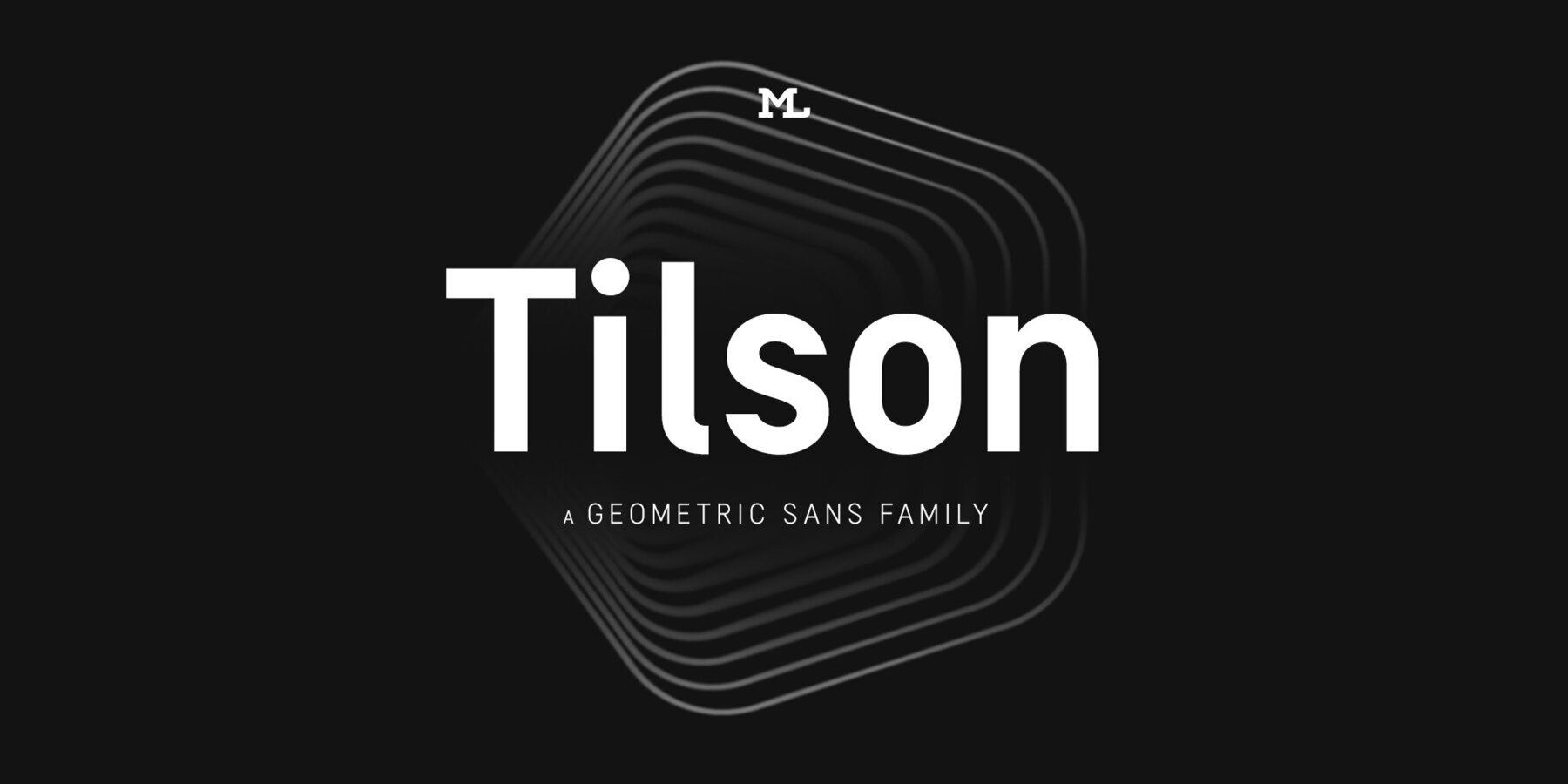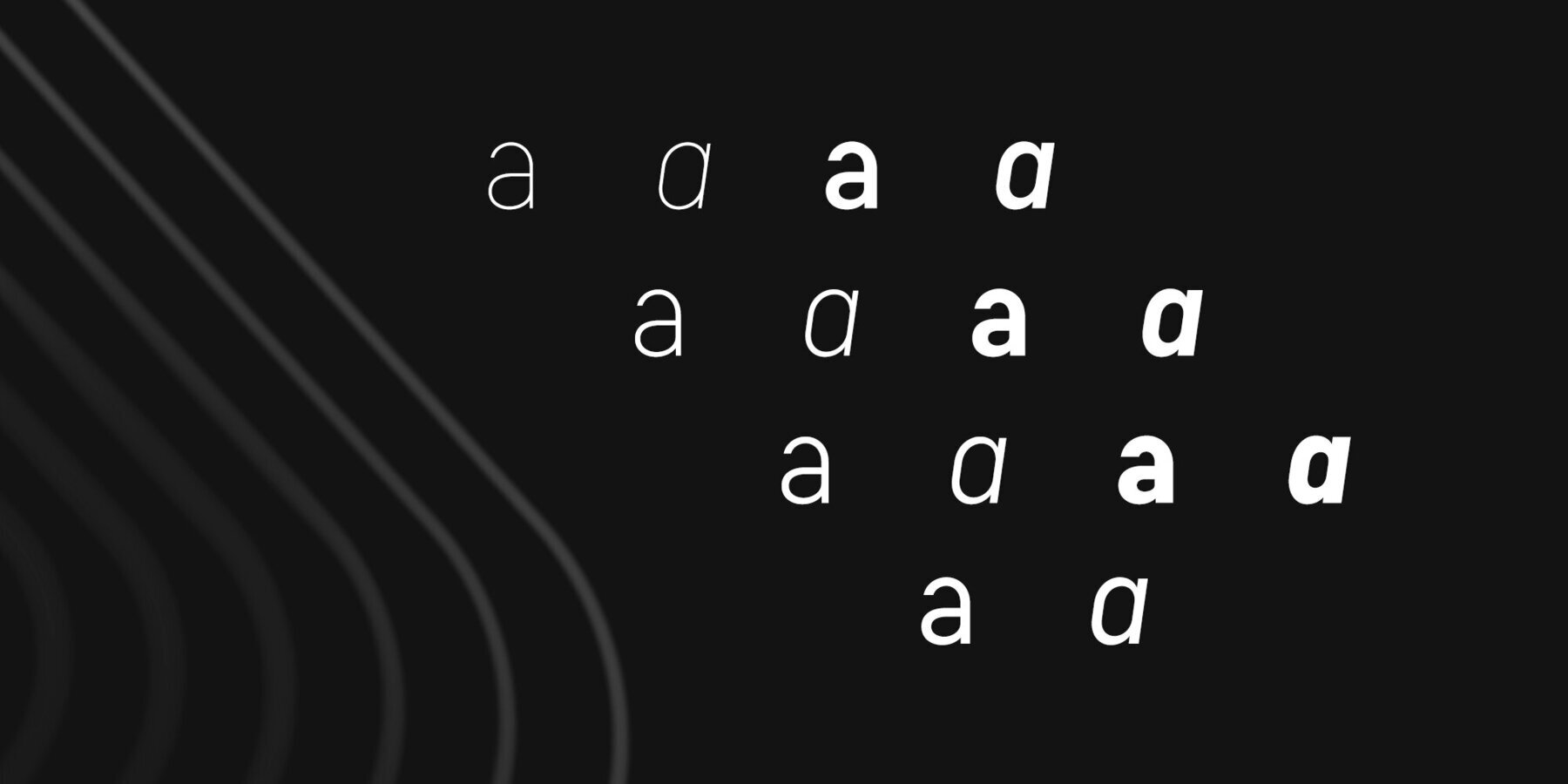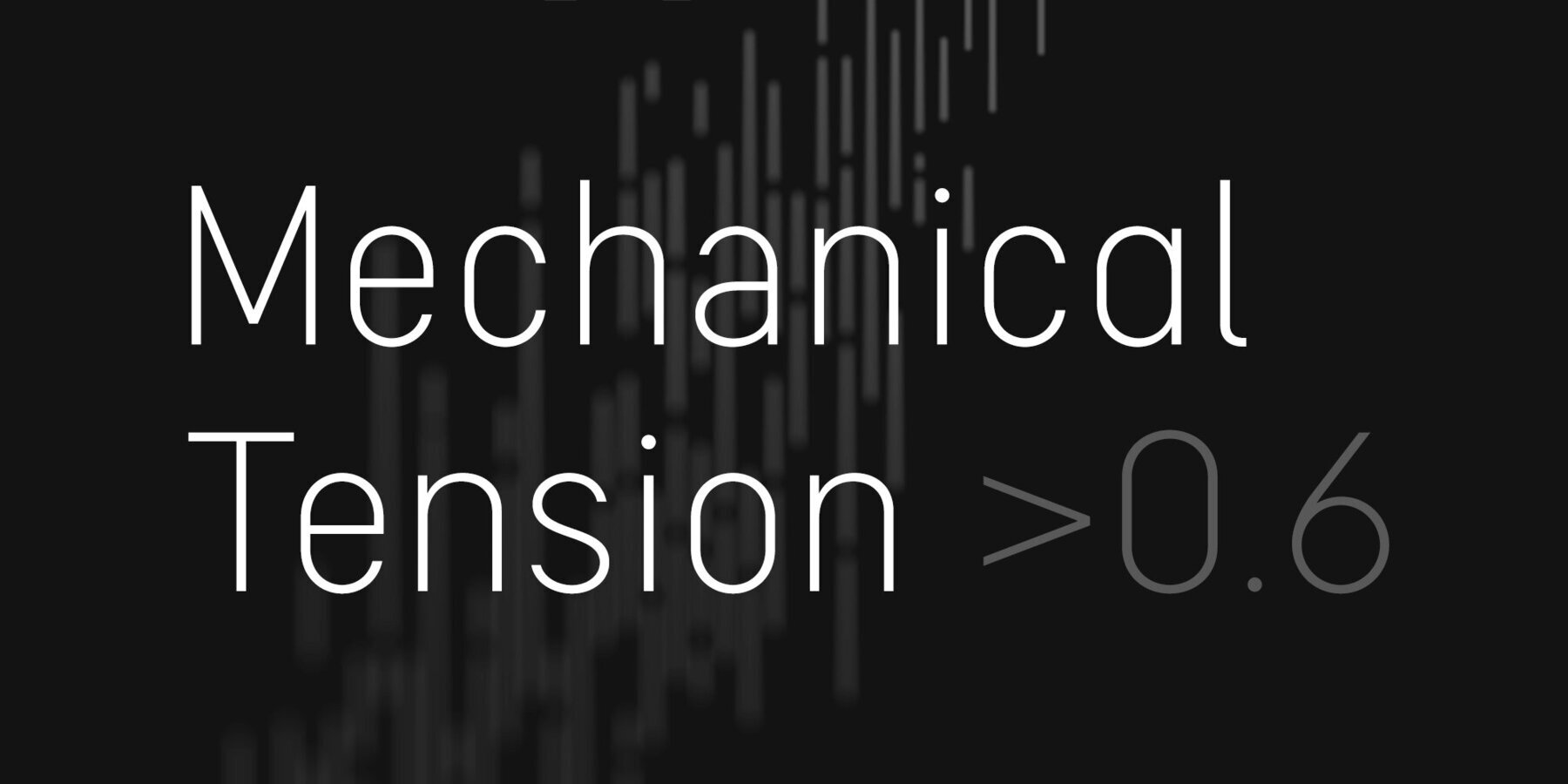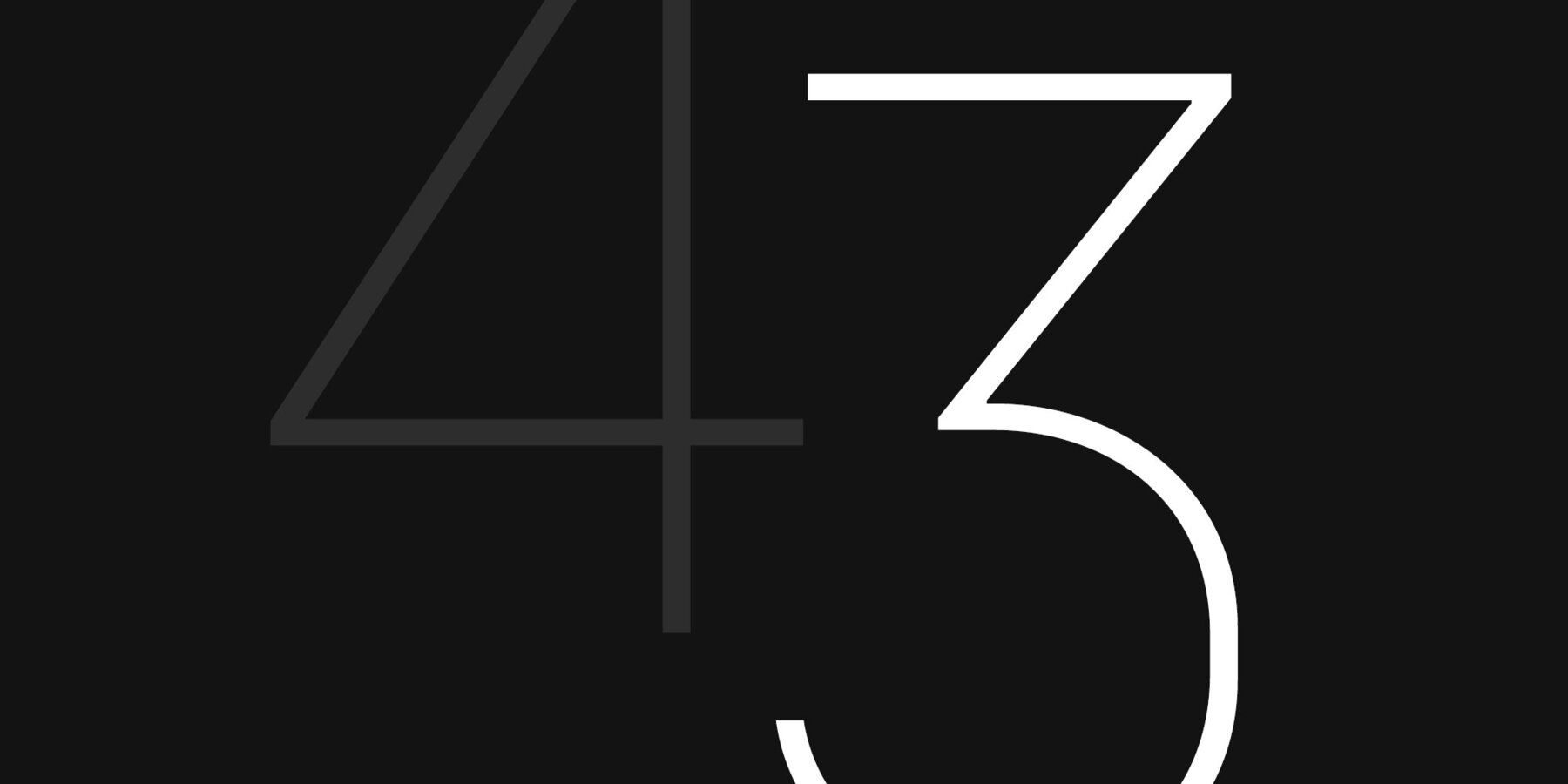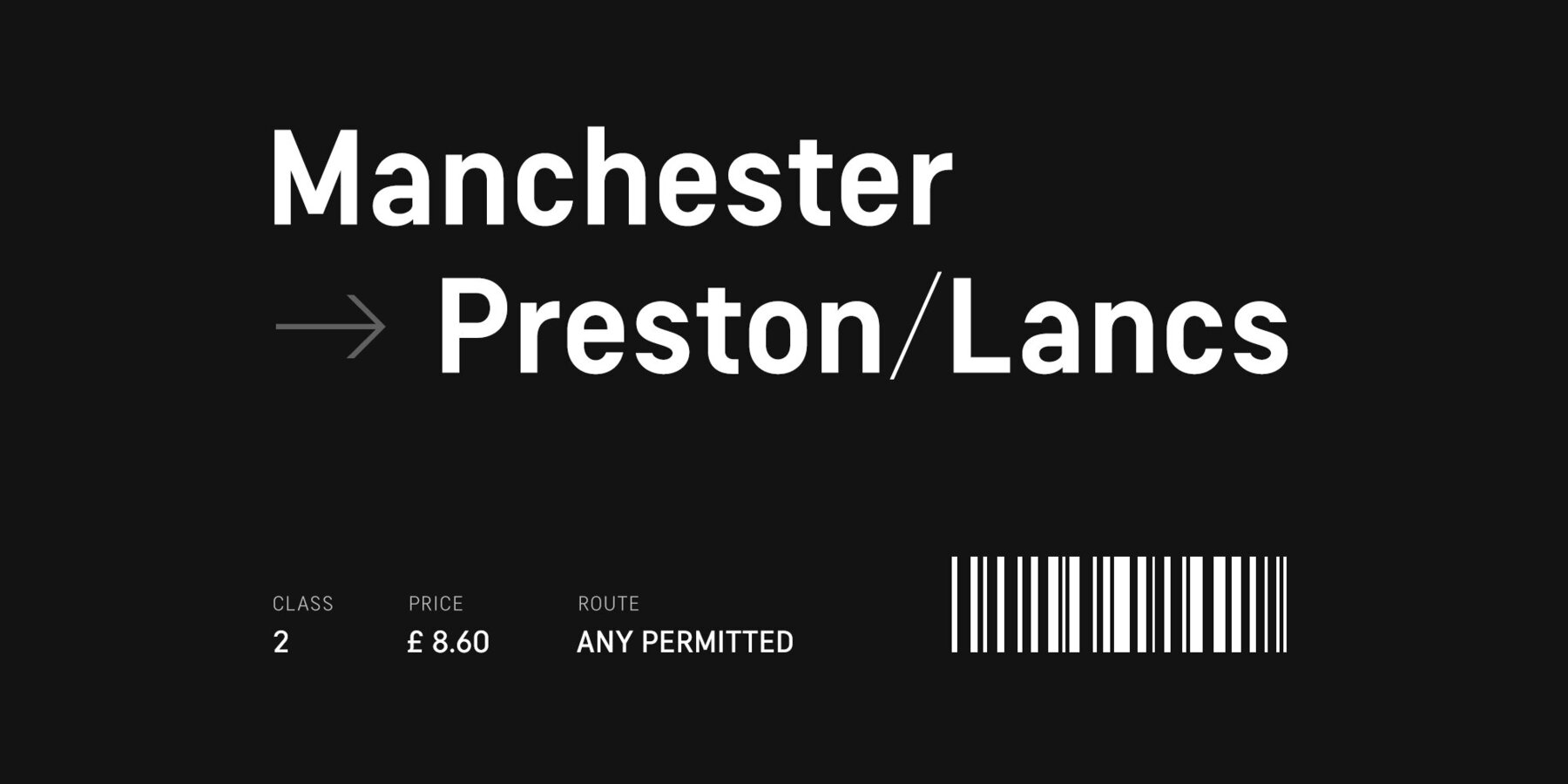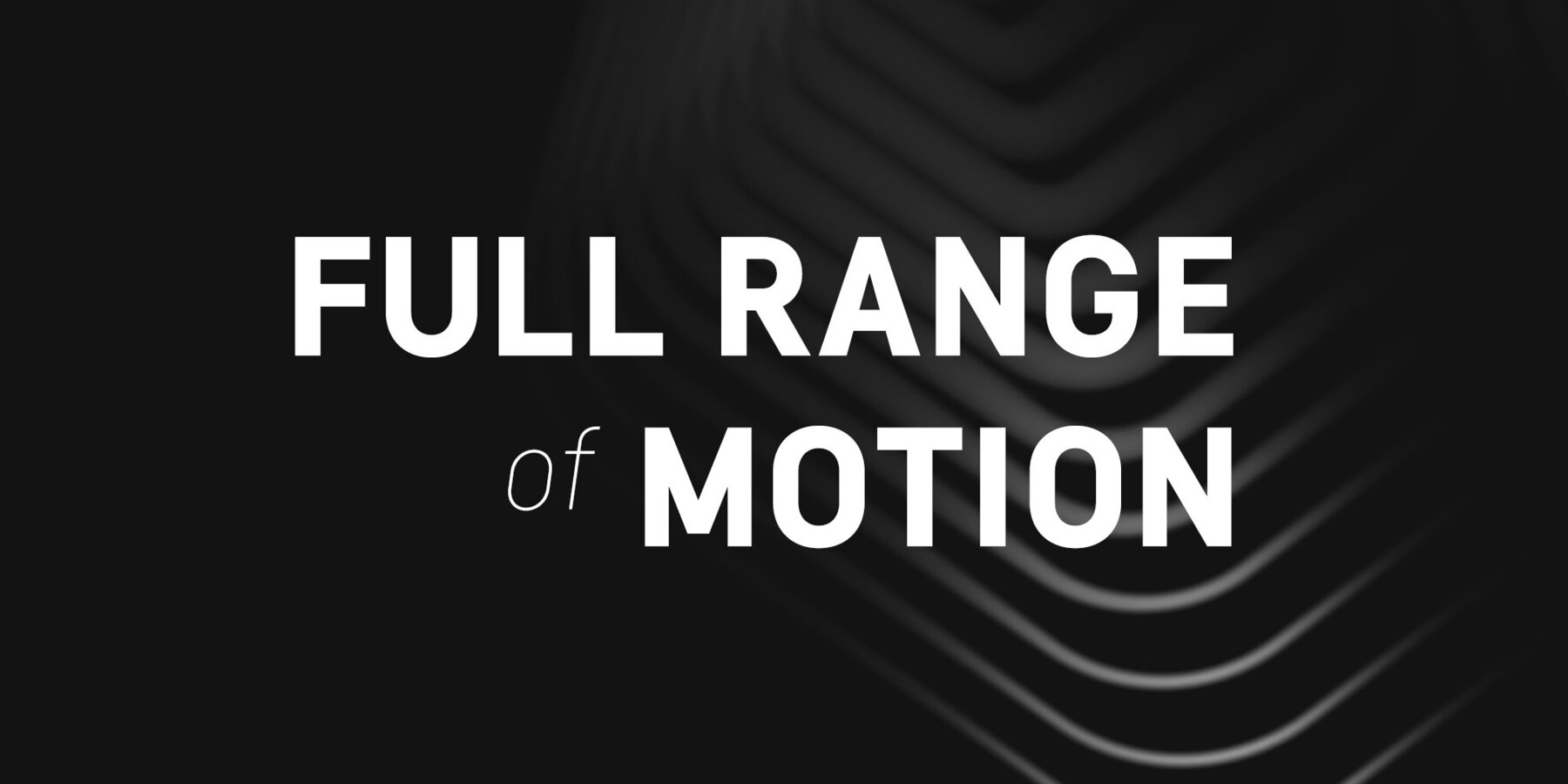
Tilson Font
Meet Tilson, a versatile workhorse family for both texts and headlines based on a geometric and straight-lined design. It will give your apps, websites, logos, posters and so much more a techy and masculine look and feel. However, some friendly rounded details, such as the i-dot, add a rather pleasant personality to this family.
With more than 200 languages covered, many opentype features on board, obliques, and weights ranging from Thin to Black, Tilson is a truly versatile companion for your next design project.